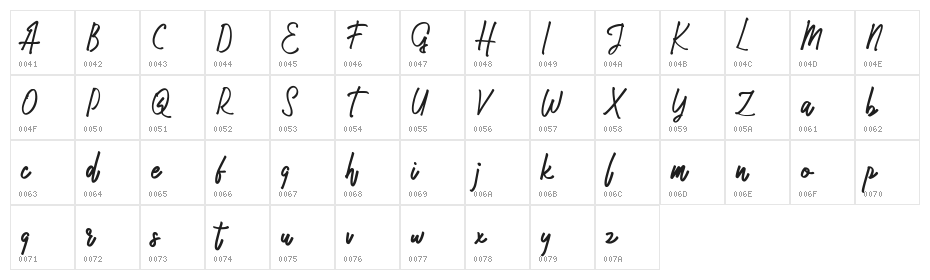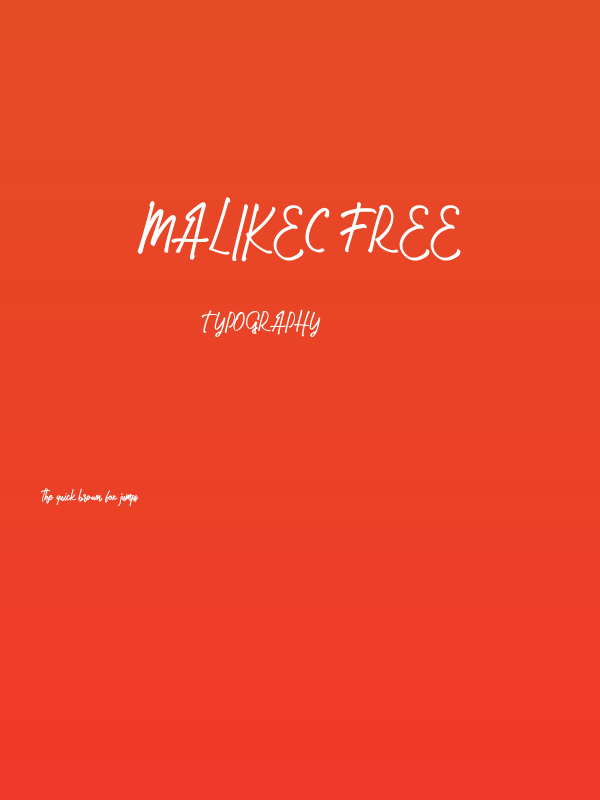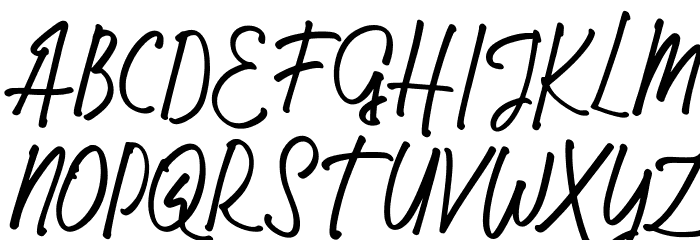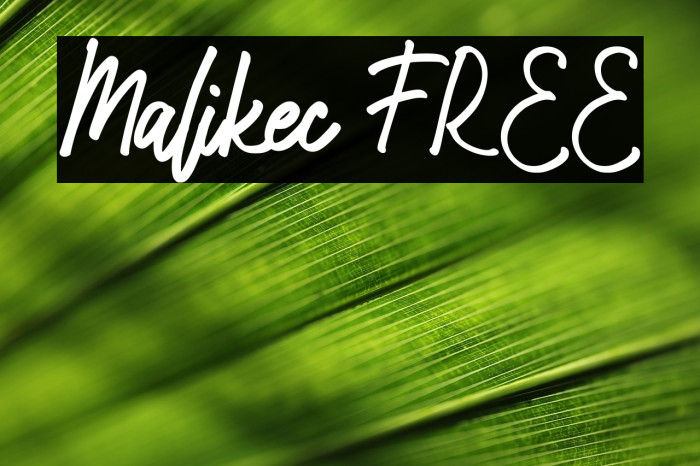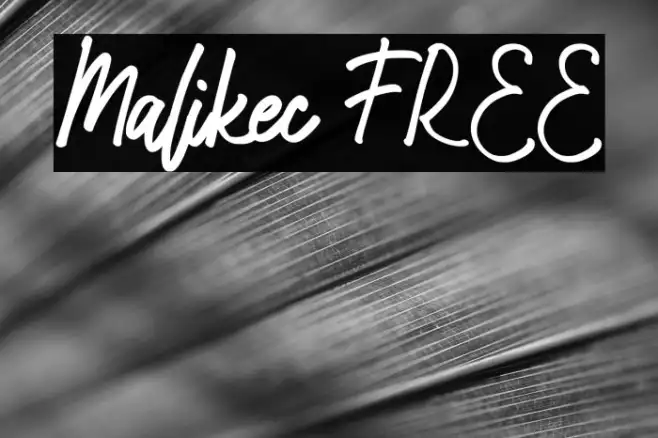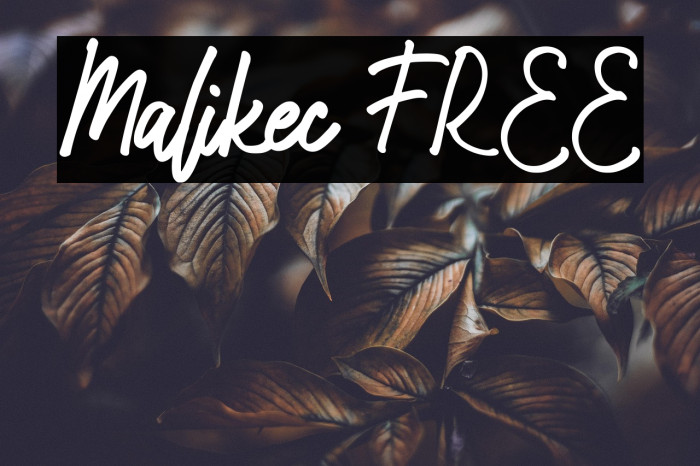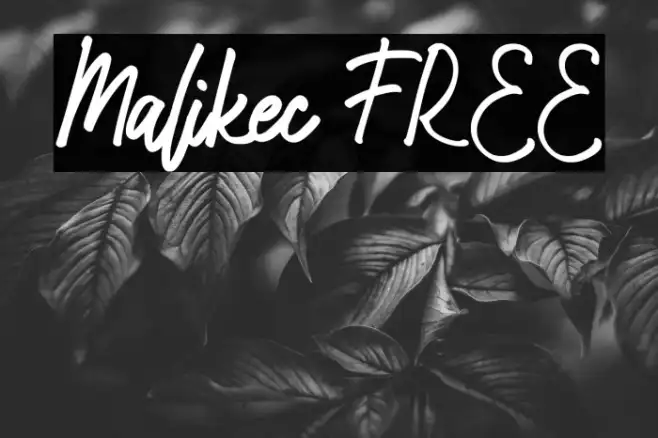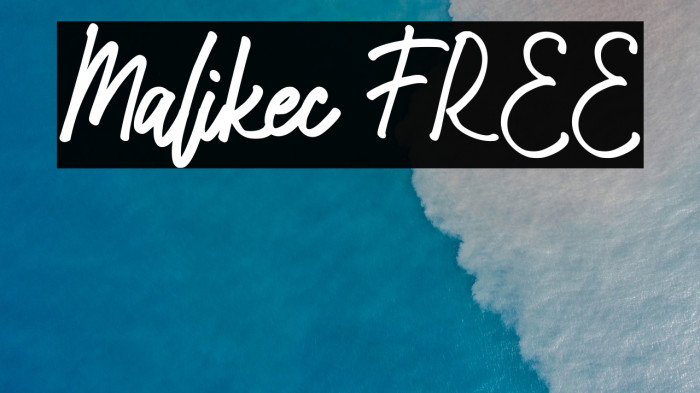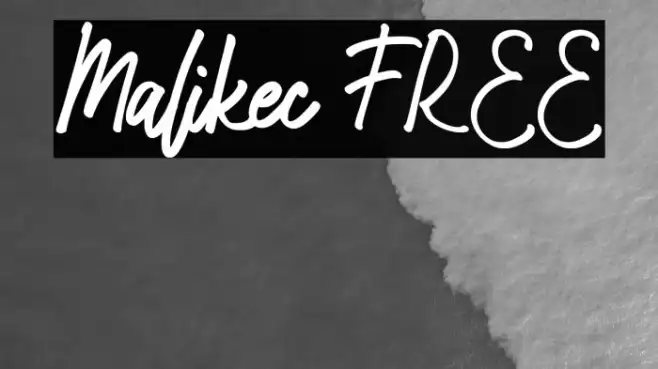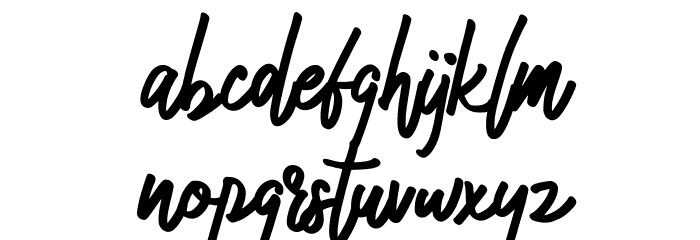
Malikec FREE Font
Malikec FREE Description
This font features a lively and dynamic handwritten style, characterized by its fluid and cursive letterforms. The uppercase letters exhibit a playful yet elegant flair, with strokes that vary in thickness, adding a sense of movement and energy. The lowercase letters maintain this energetic flow, with some letters connecting seamlessly, enhancing the handwritten aesthetic. The numbers and special characters are crafted with the same attention to detail, ensuring consistency across all glyphs. This font's unique style makes it suitable for projects that require a personal touch or a creative, informal vibe.